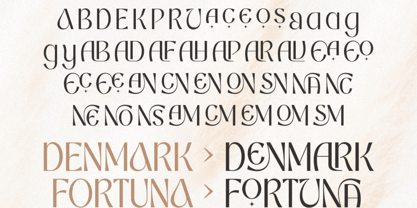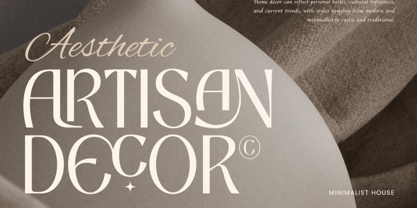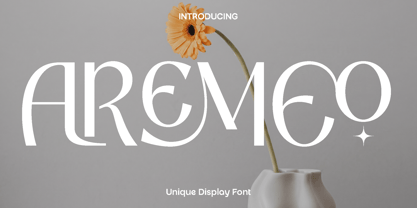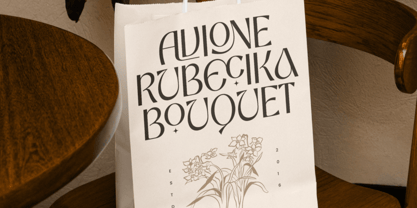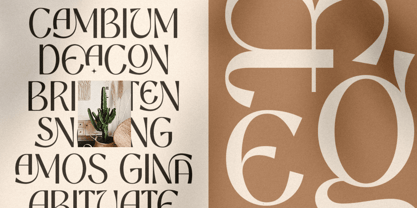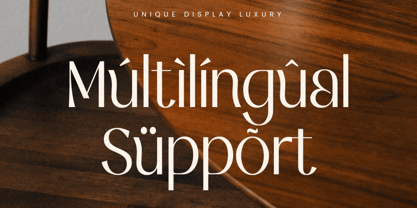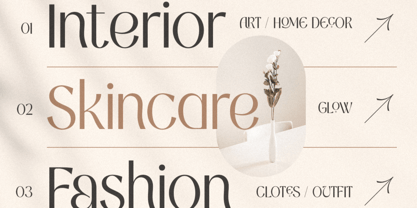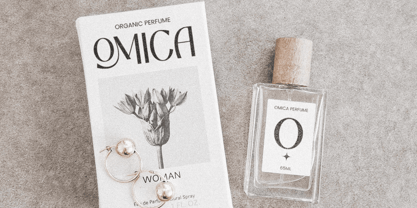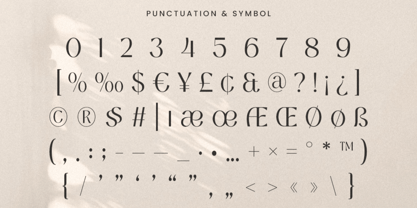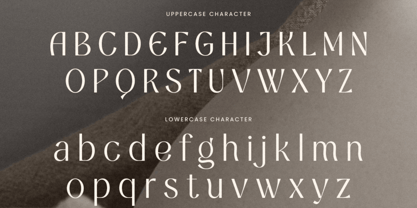
Aremeo
The Aremeo Font Family was designed by Olivia Love and published by Only Fonts. Aremeo contains 1 styles. More about this family
Aremeo – Unique Modern Display Font Aremeo is a bold and artistic display font designed to infuse originality and striking visual energy into your projects. Drawing inspiration from contemporary typography and expressive creative styles, Aremeo showcases strong character shapes and modern details that command attention. Each letter is crafted to feel dynamic and memorable, providing your designs with a unique identity filled with personality and style. Tailored for creatives seeking standout typography, Aremeo excels in branding, posters, advertising campaigns, album covers, social media graphics, editorial layouts, and modern packaging. Its bold appearance is perfect for eye-catching headlines and impactful visual compositions that leave a lasting impression. Whether utilized in print or digital formats, Aremeo creates a fresh and artistic atmosphere that elevates your work. Combining creativity with versatility, Aremeo adapts effortlessly to both modern and experimental design directions. Its expressive structure empowers designers to craft layouts that feel energetic, stylish, and visually engaging. From fashion-inspired branding to artistic promotional materials, this font adds a distinctive flair that transforms ordinary typography into a creative statement. Meticulously designed with balance and readability in mind, Aremeo offers a powerful display style while ensuring clarity across various applications. It is the ideal typeface for designers in search of a modern font with bold character and artistic charm. Aremeo Unique Display Font Features: • Artistic display characters • Unique punctuation, numbers, and symbols • Uppercase and lowercase • OpenType features • Multilingual support for 50 plus languages • Modern and creative display style • Perfect for branding, posters, and advertising